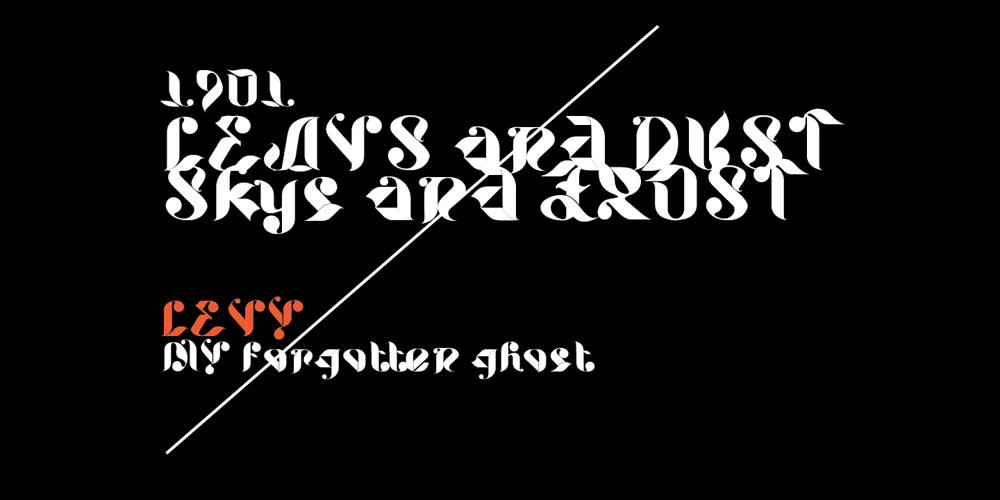
Levy Font Family was designed by Lizzy Levy and published by Lithographe. Levy contains 1 styles and family package options. Good for typography, good for close paragraphs, good for titles logo, markers, use with numbers, Capitals and Cases. use Special symbols as design elements. One can be used for others. Good for closed groups. Limbos, good to go with Serif, Sans serif or old english. use it with variety and any design light or heavy. the weight is black, so it wont matter. hope you enjoy the font and use it.